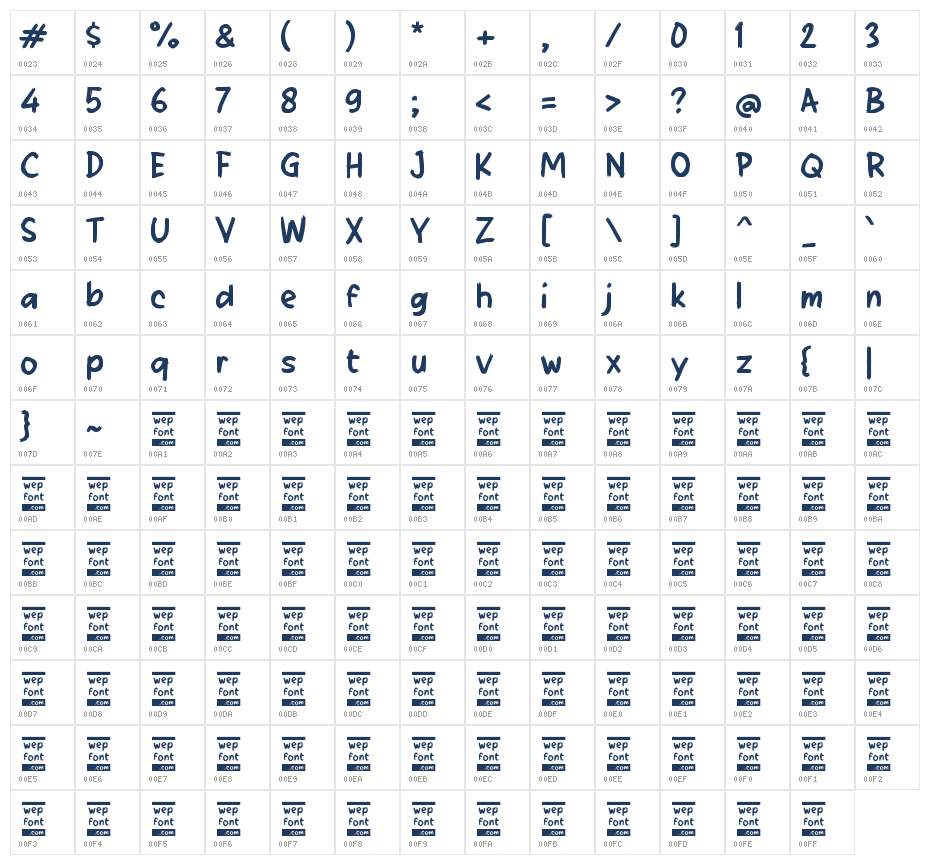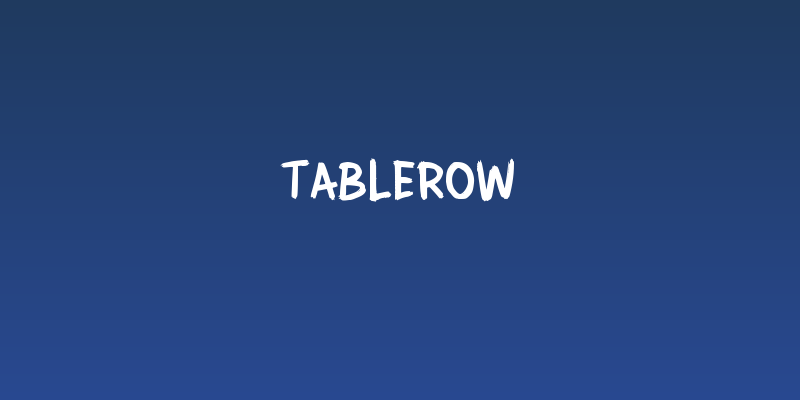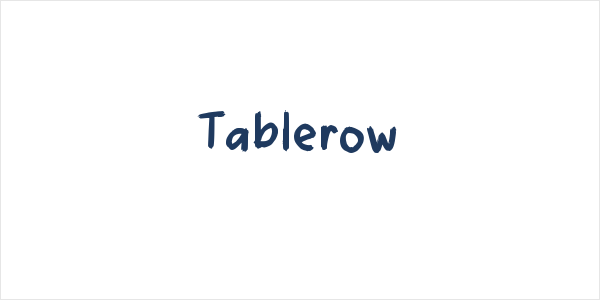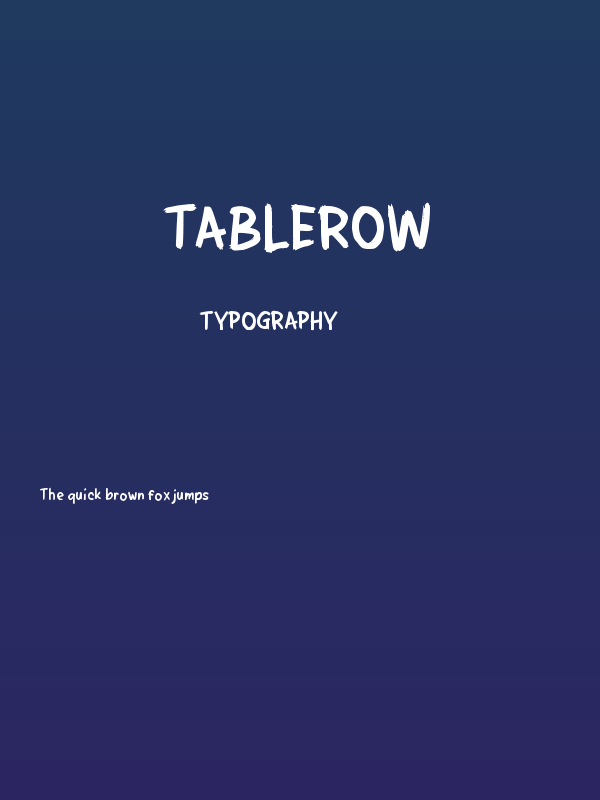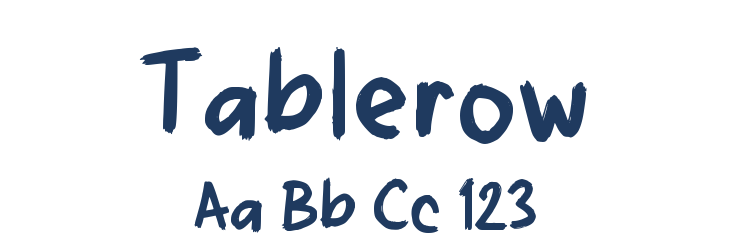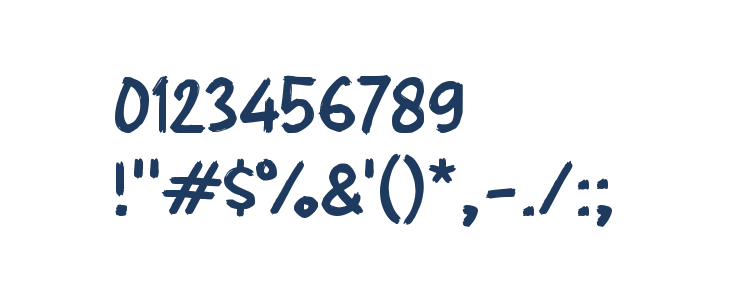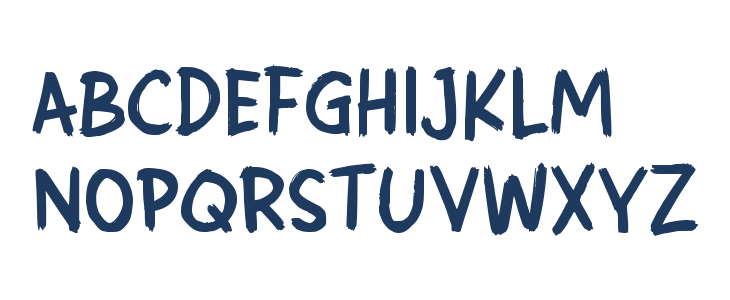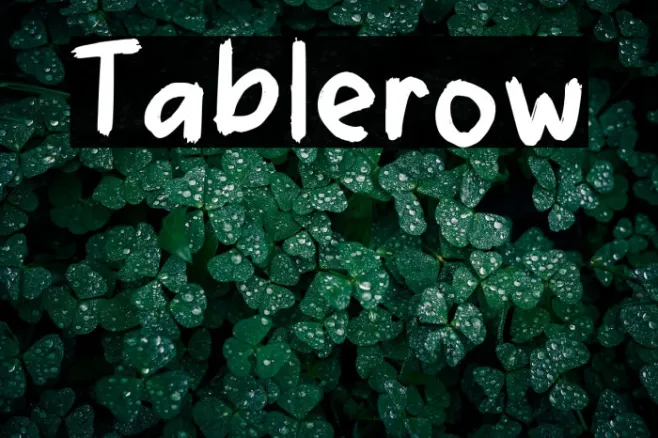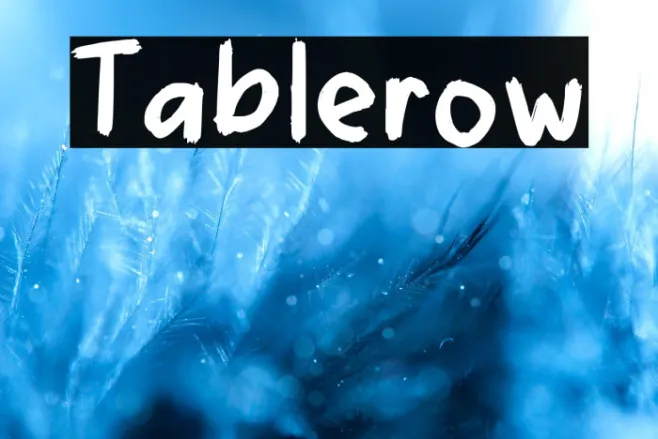
Tablerow Font
Tablerow Description
A playful, handwritten style font with a casual, brush-like appearance. The characters have irregular strokes and a slightly rough texture, giving it an informal and lively feel.
| Overall Style | Casual, Playful, Handcrafted |
| Use Case | Headlines, Body text, Logos, Creative projects |